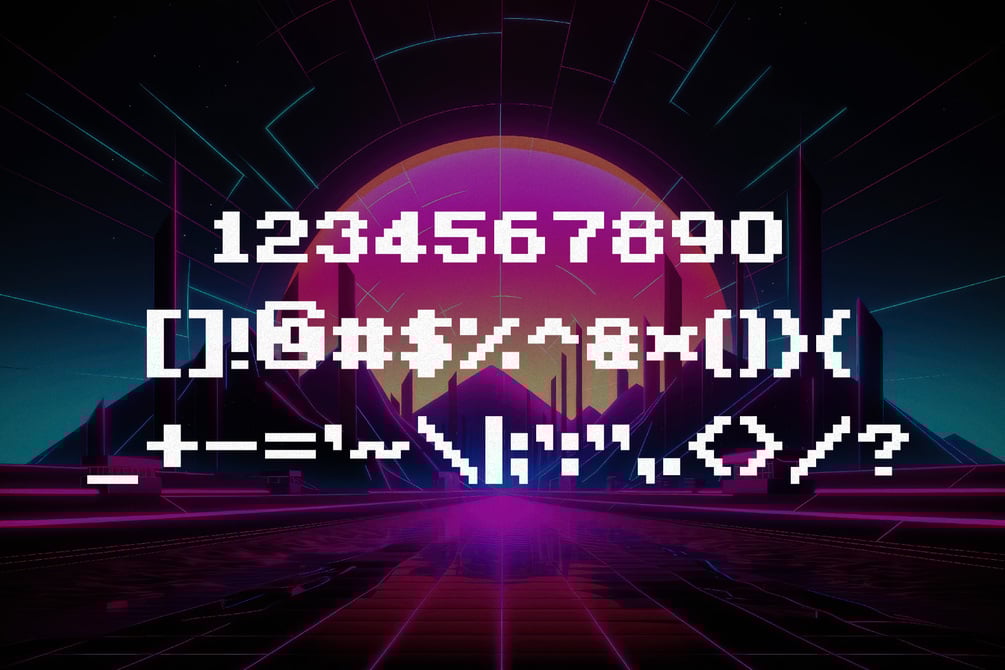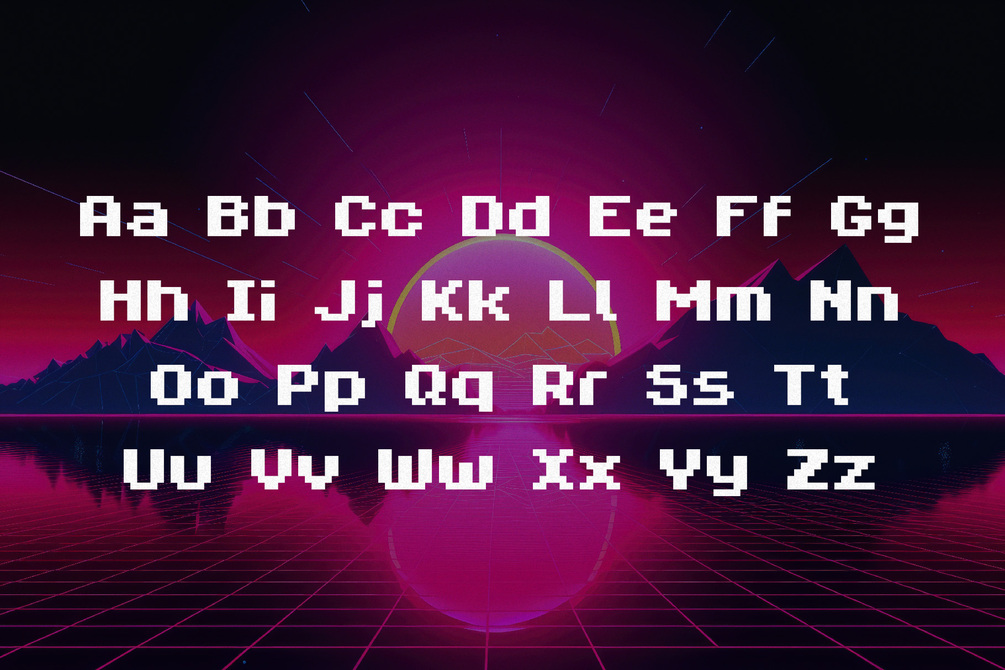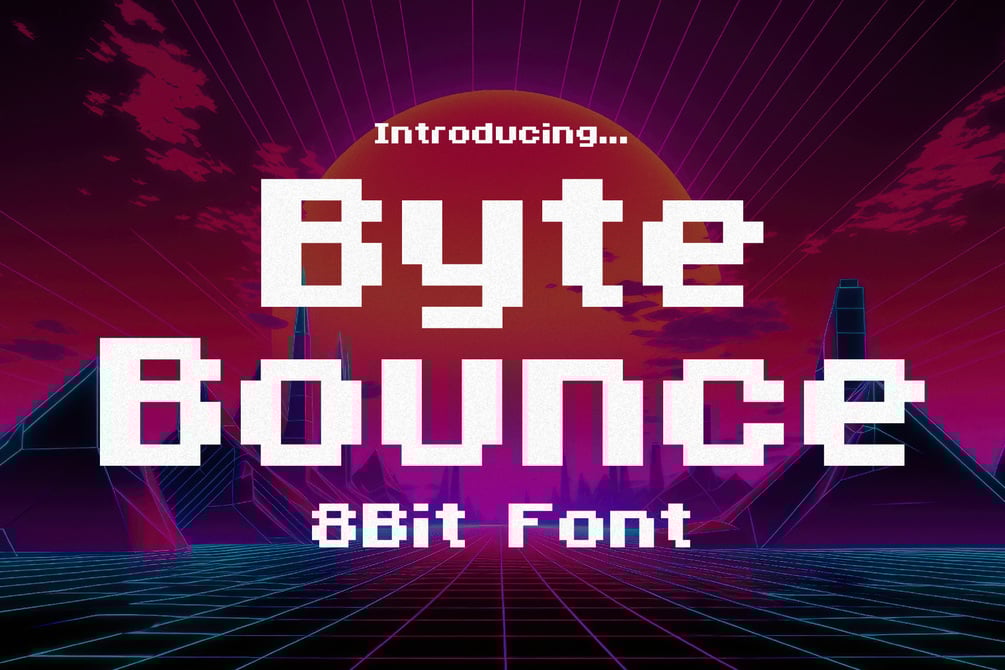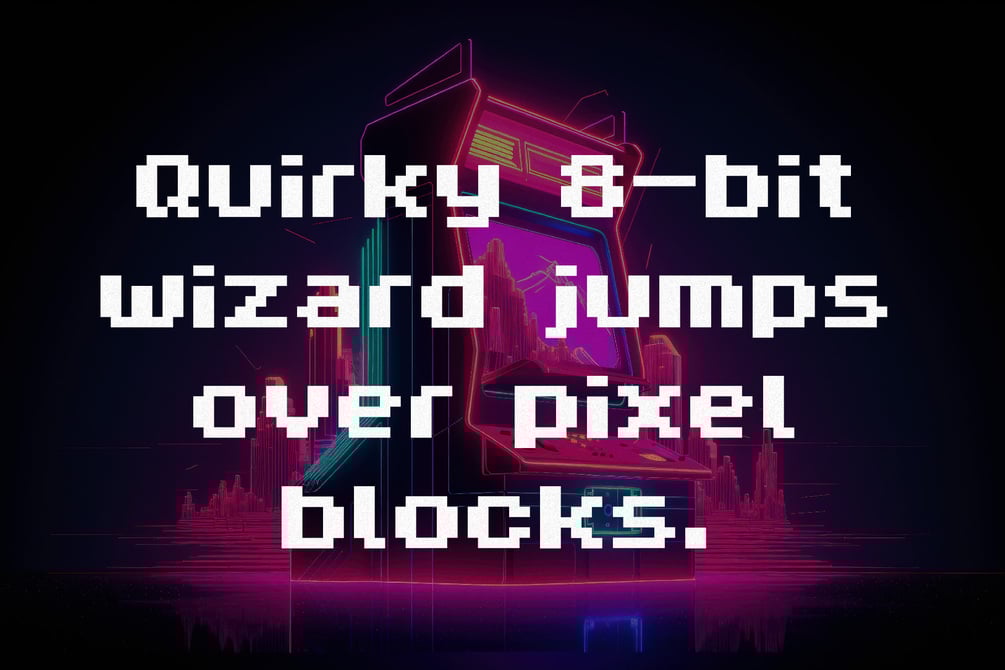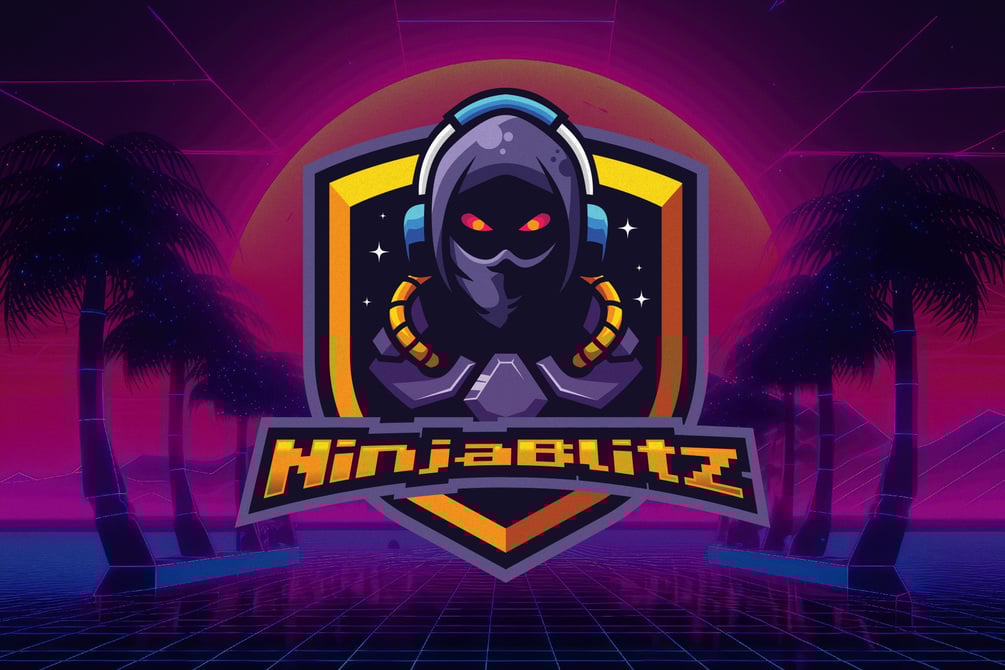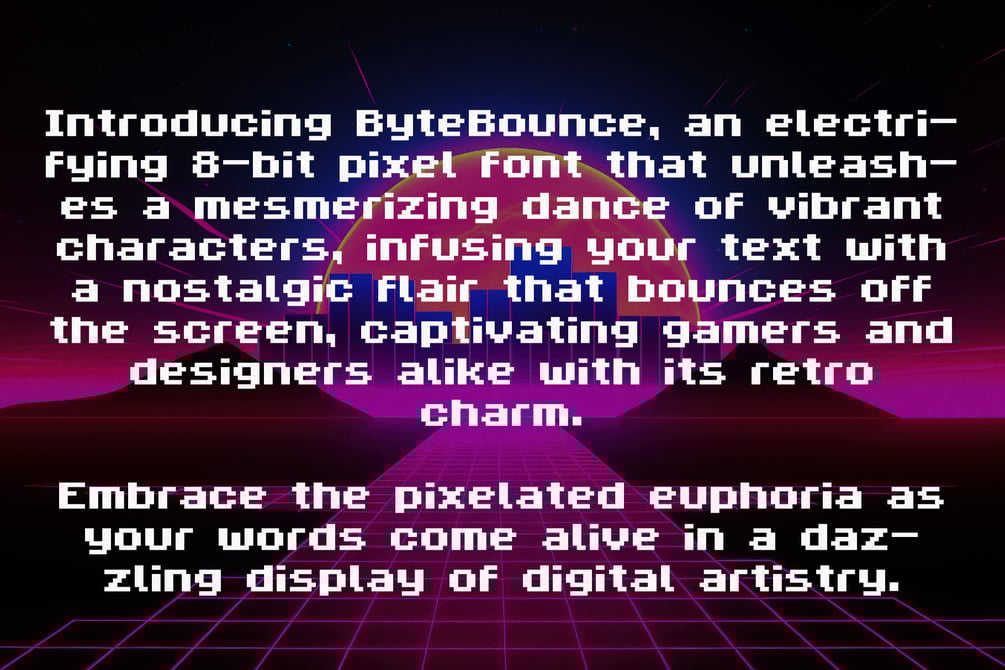
ByteBounce - 8Bit Pixel Font
Introducing ByteBounce, an electrifying 8-bit pixel font that unleashes a mesmerizing dance of vibrant characters, infusing your text with a nostalgic flair that bounces off the screen, captivating gamers and designers alike with its retro charm. Embrace the pixelated euphoria as your words come alive in a dazzling display of digital artistry.